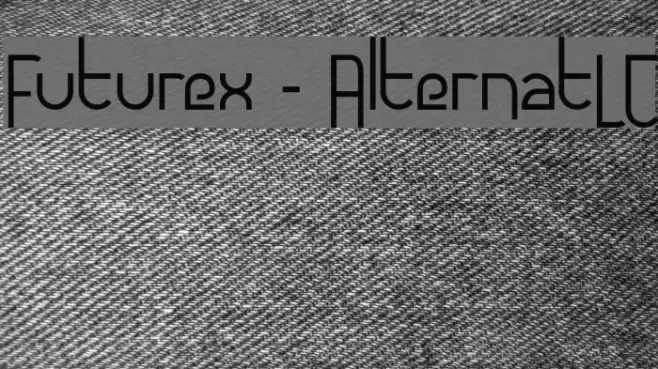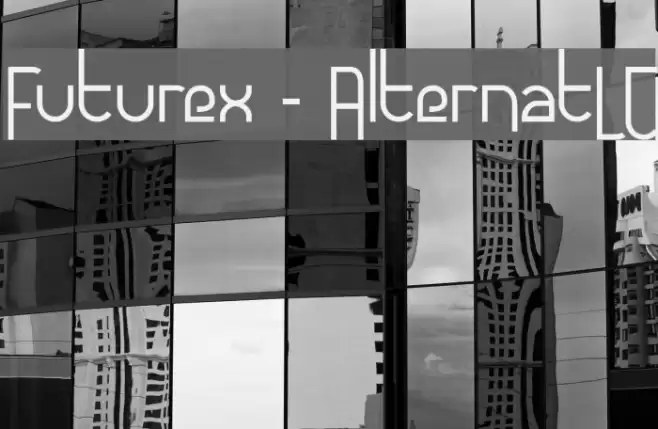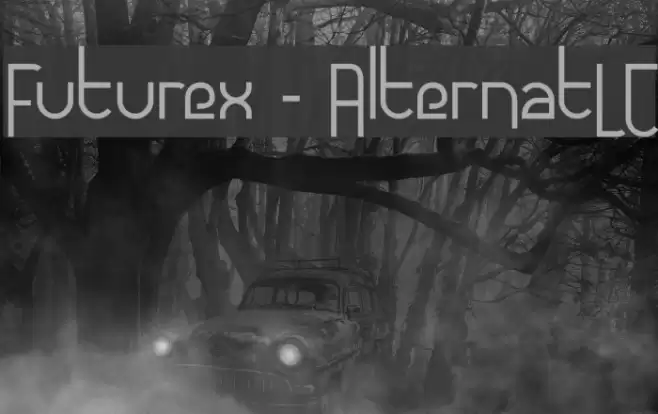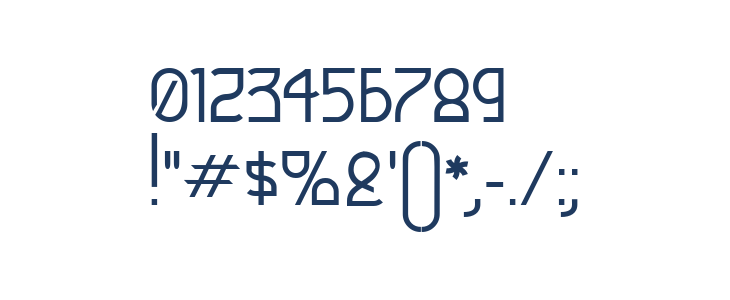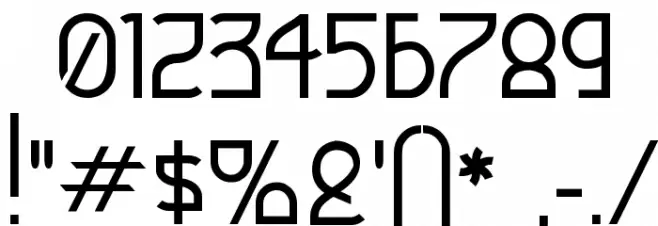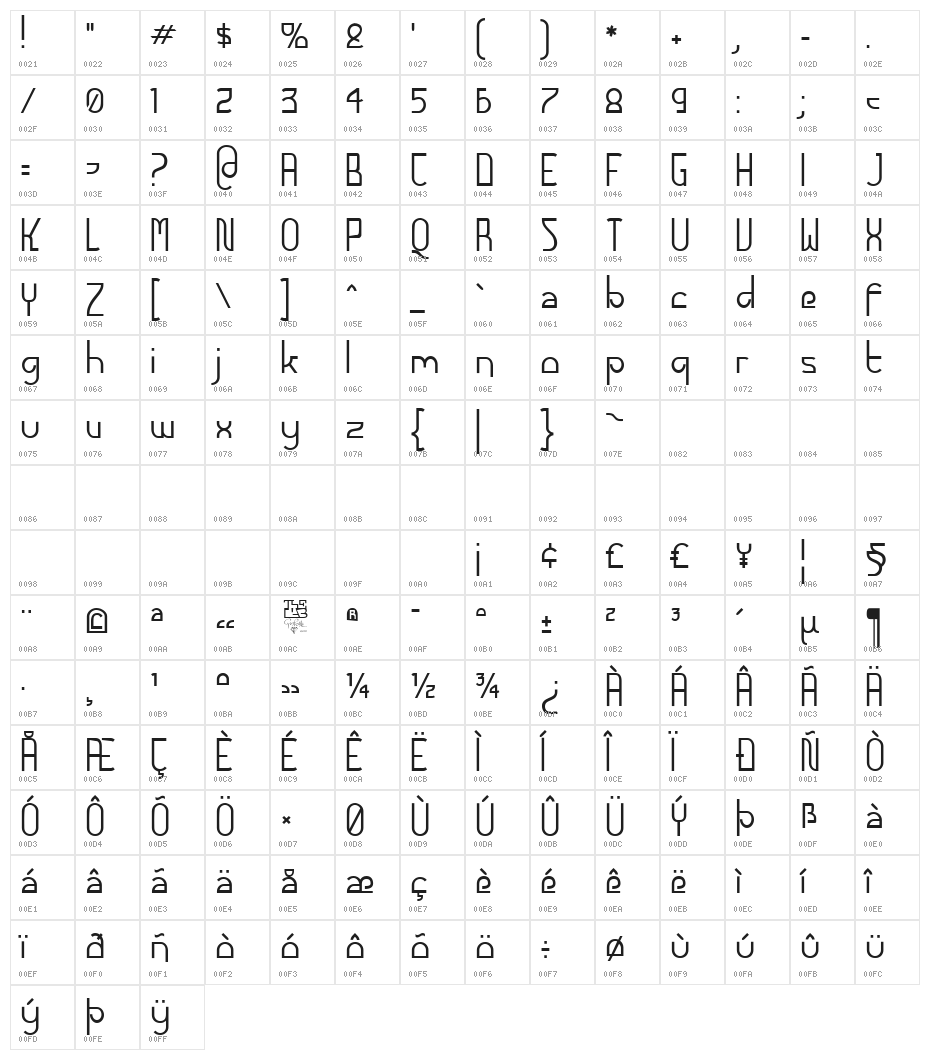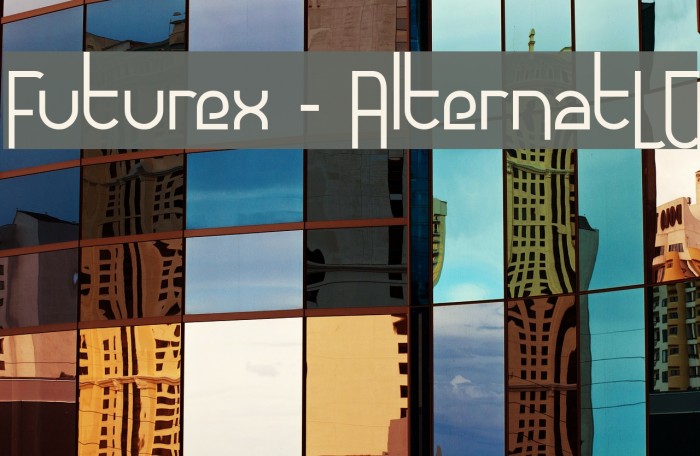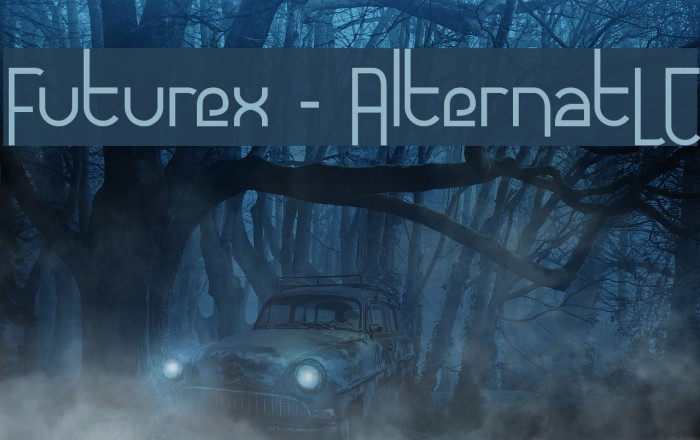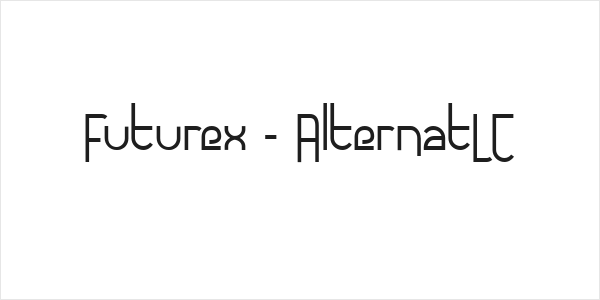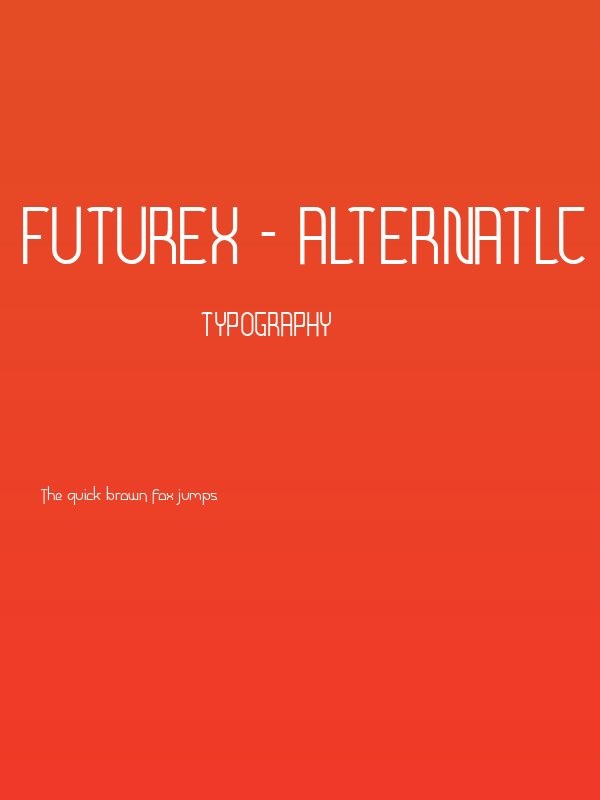
Futurex - AlternatLC Font
Futurex - AlternatLC Description
This font features a modern, geometric design with clean lines and a futuristic aesthetic. The uppercase letters are tall and narrow, while the lowercase letters maintain a consistent height, creating a uniform appearance. The numerals are distinct and align well with the overall style, offering a sleek and contemporary look. Special characters are designed with the same geometric precision, making them easily recognizable and visually appealing. The font's structure is well-suited for digital and print media, providing a clear and stylish option for various design needs.
A modern, geometric font with clean lines and a futuristic aesthetic from Uncategorized fonts.
- Proposed Projects: Ideal for technology branding, modern advertising, digital interfaces, and futuristic-themed projects.
- Use Case: Headlines, Logos, Digital Interfaces